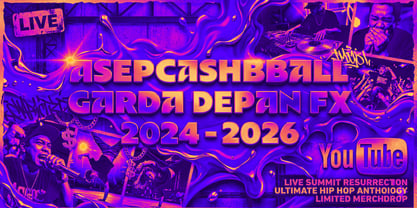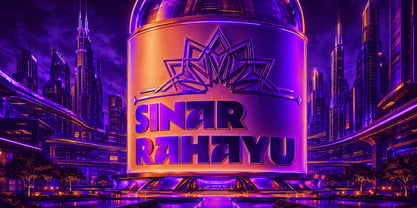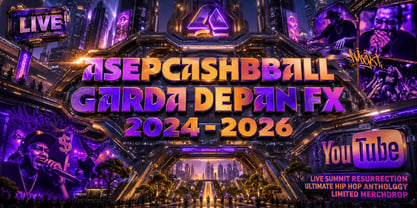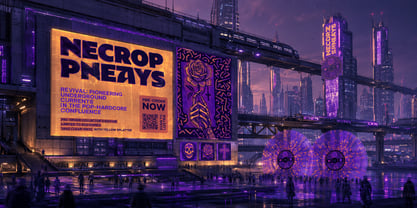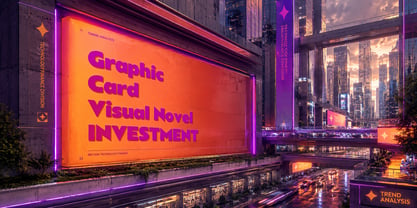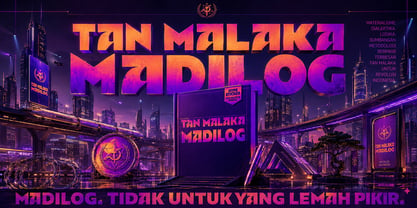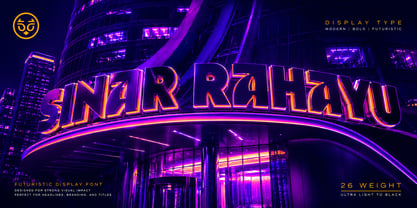
Sinar Rahayu O
The Sinar Rahayu O Font Family was designed by Galang Persada and published by O Type Foundry. Sinar Rahayu O contains 1 styles. More about this family
SINAR RAHAYU is a bold, contemporary display typeface that harmonizes geometric precision with warm, decorative character. Designed for impactful readability at large sizes while maintaining personality in more compact settings, it is ideal for projects requiring both presence and nuance. Tone: modern, confident, artisanal; best suited for headlines, logos, signage, packaging, posters, and architectural branding. Its key strength lies in a distinctive voice that merges clean geometry with subtle ornamental details for cultural resonance and visual impact. Suggested applications include brand identity, where strong letterforms create memorable wordmarks; signage and wayfinding, offering high legibility and striking curb appeal; packaging and labels, where decorative touches convey a premium, handcrafted quality; editorial covers and posters, delivering dramatic display presence; and hospitality or retail, evoking modern luxury with cultural warmth. Features include display‑optimized letterforms with generous counters and confident strokes, multiple weights and styles for typographic hierarchy, OpenType features such as stylistic alternates, discretionary ligatures, and small caps, and extended Latin support with diacritics for multilingual use. Kerning and spacing are finely tuned for large‑format applications, and recommended pairings are a neutral sans for body text, a humanist serif for warmth in editorial or luxury branding, and a condensed grotesque for compact information panels. The design draws from geometric modernism infused with regional ornamental motifs, creating a typeface that feels both contemporary and culturally grounded.